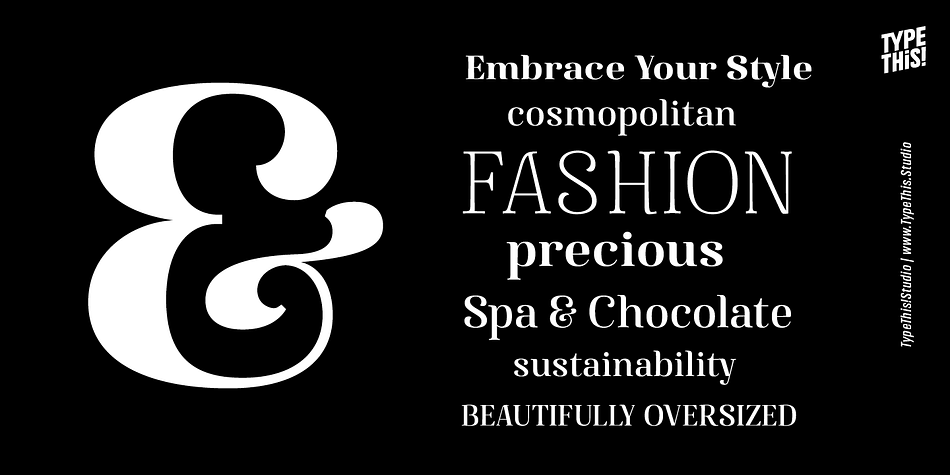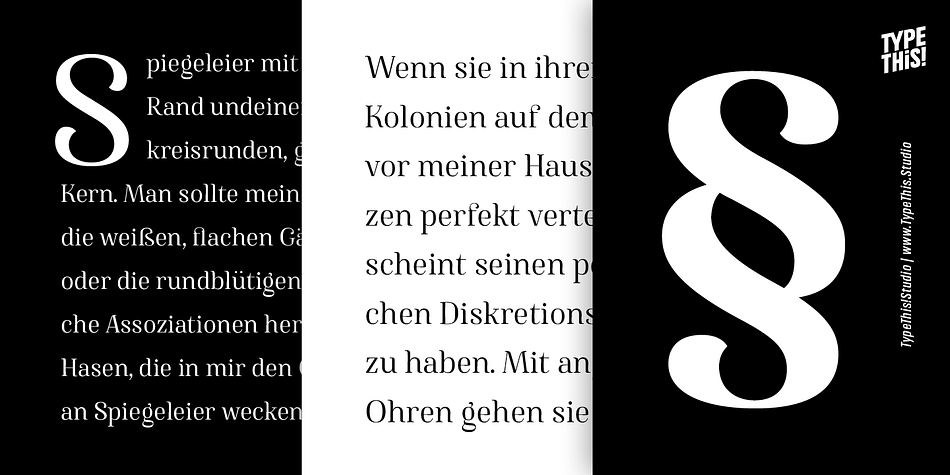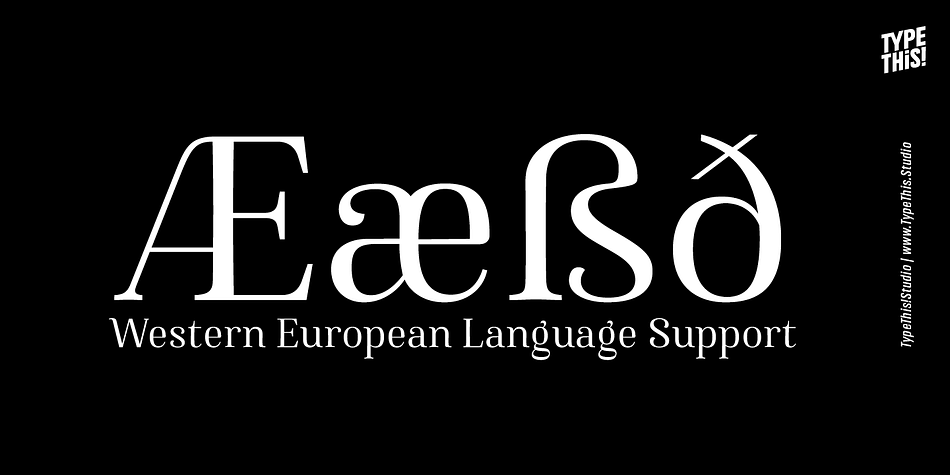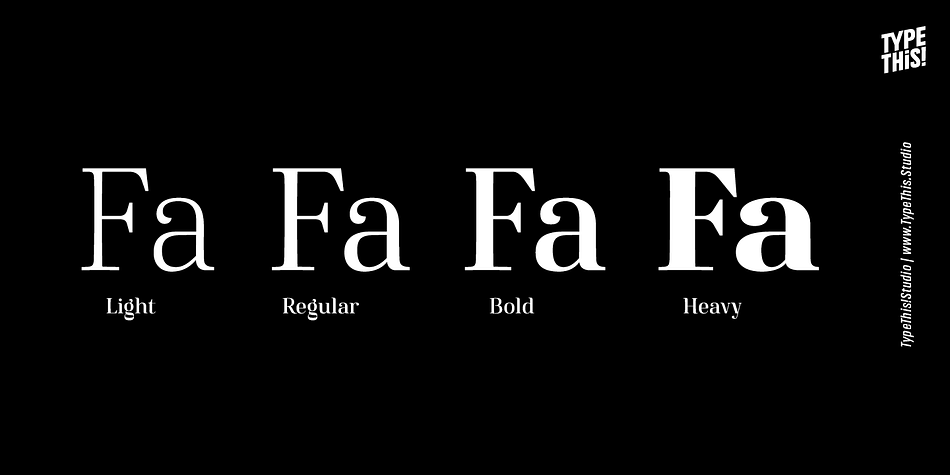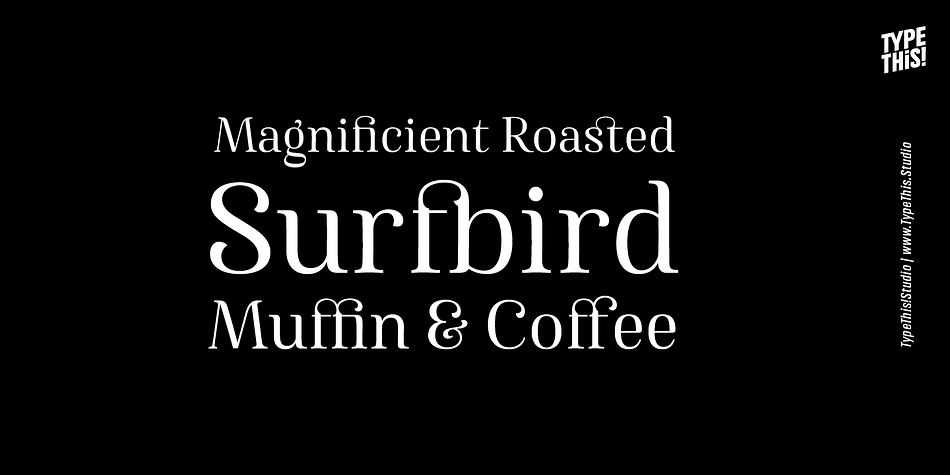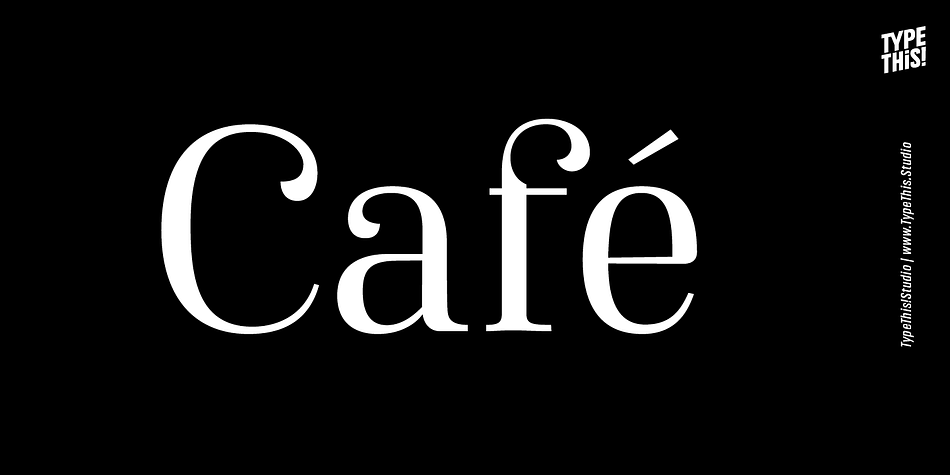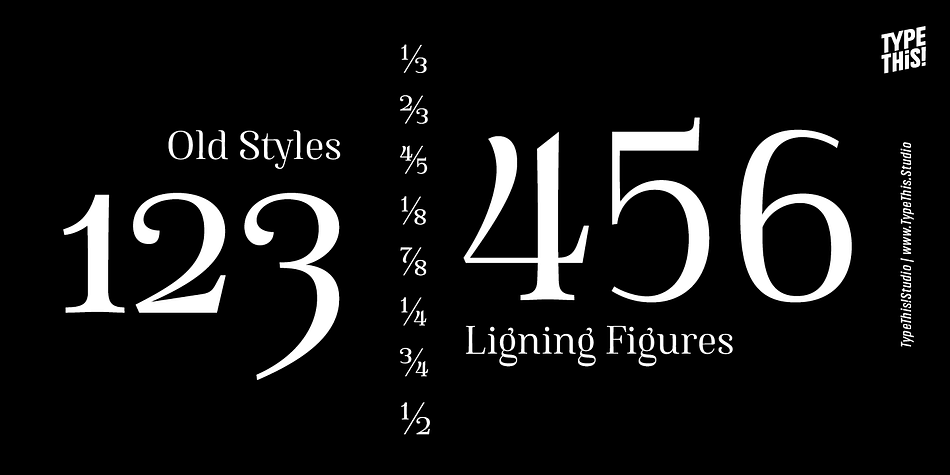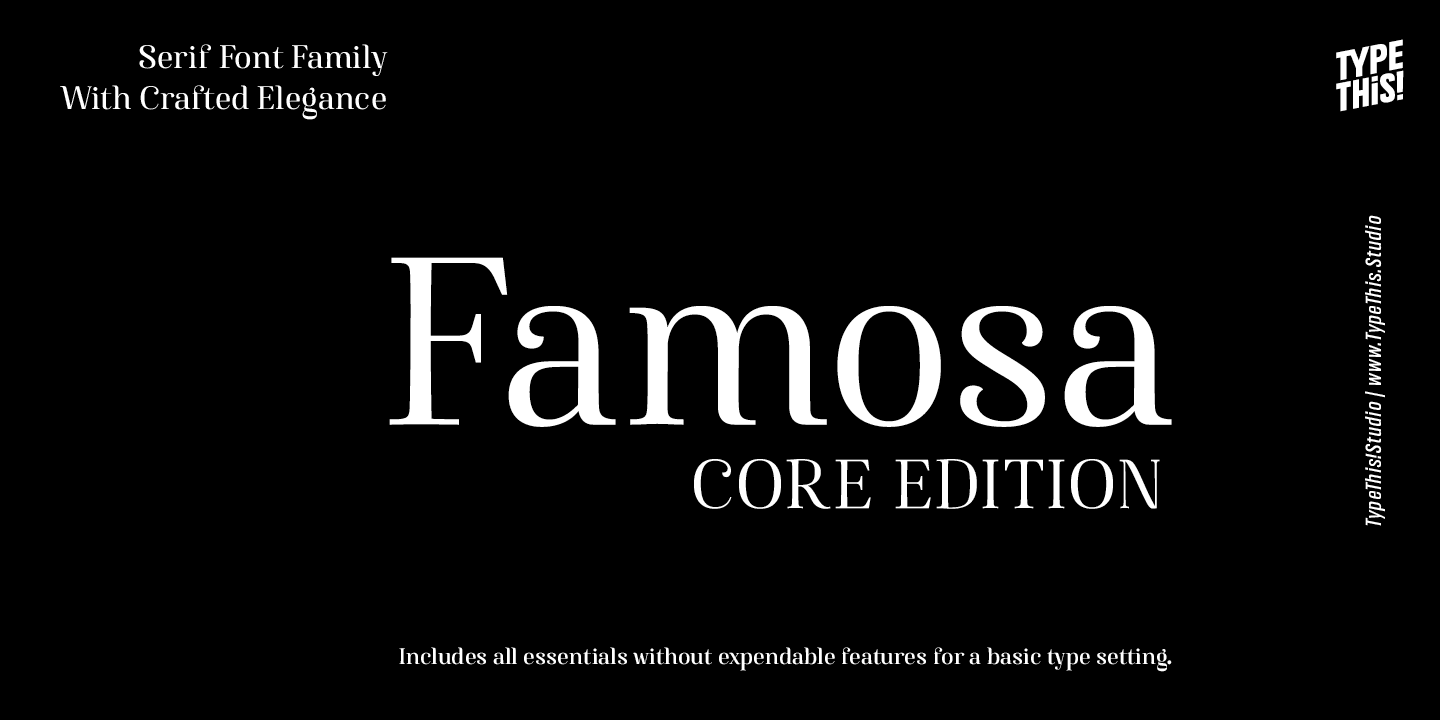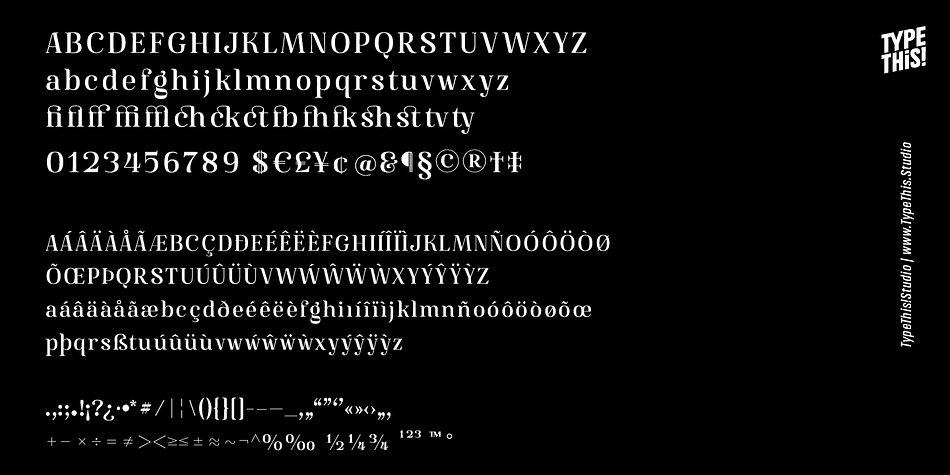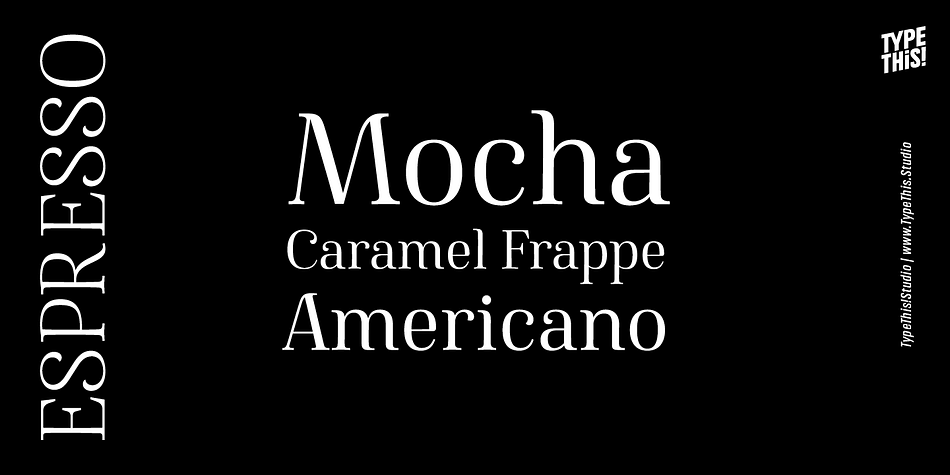
Famosa Core
Designed by Anita Jürgeleit, Famosa Core is a display serif and serif font family. This typeface has four styles and was published by TypeThis!Studio.
Modern aesthetic meets classy handmade elegance.
Famosa is designed for all your stylish fashion magazines, clothing brands, and logos as well as your elegant blogger themes. The highlights are for sure the beautiful ligatures, such as sh, ct, fb and more.
This version covers all the essentials of Famosa
- 265 Characters
- 4 Styles (Light, Regular, Bold, Heavy)
- Western European Language Support
- Numbers
- Symbols
- Punctuation